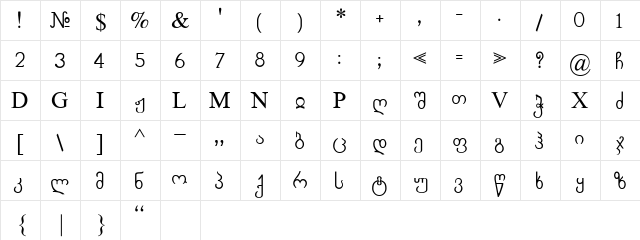
Chveulebrivi TT-Oki Regular Font Preview
Chveulebrivi TT-Oki Regular
Design Context for Chveulebrivi TT-Oki Typeface
Chveulebrivi TT-Oki is a composed and adaptable typeface that performs quietly and consistently across a wide range of design contexts.